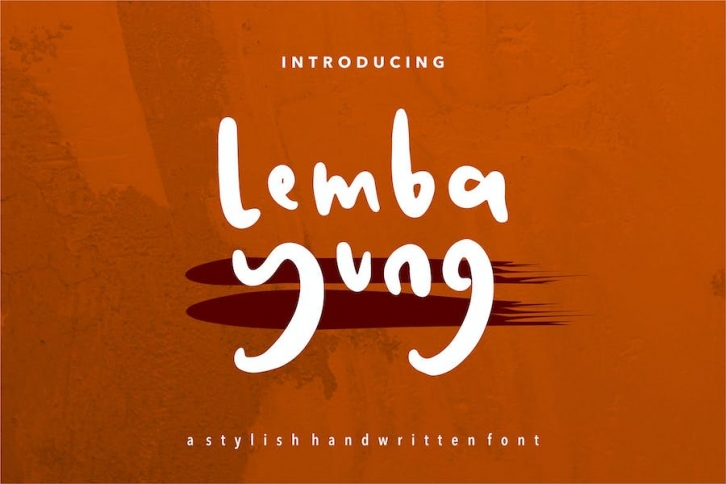
Lembayung | A Stylish Handwritten Font Download
Lembayung | A Stylish Handwritten Font with a calligraphy style, So beautiful on invitation like greeting cards, branding materials, business cards, quotes, posters, and more!
• Tons of glyphs
• Alternates and Ligatures
• Punctional
• Fonts include Multilingual Support